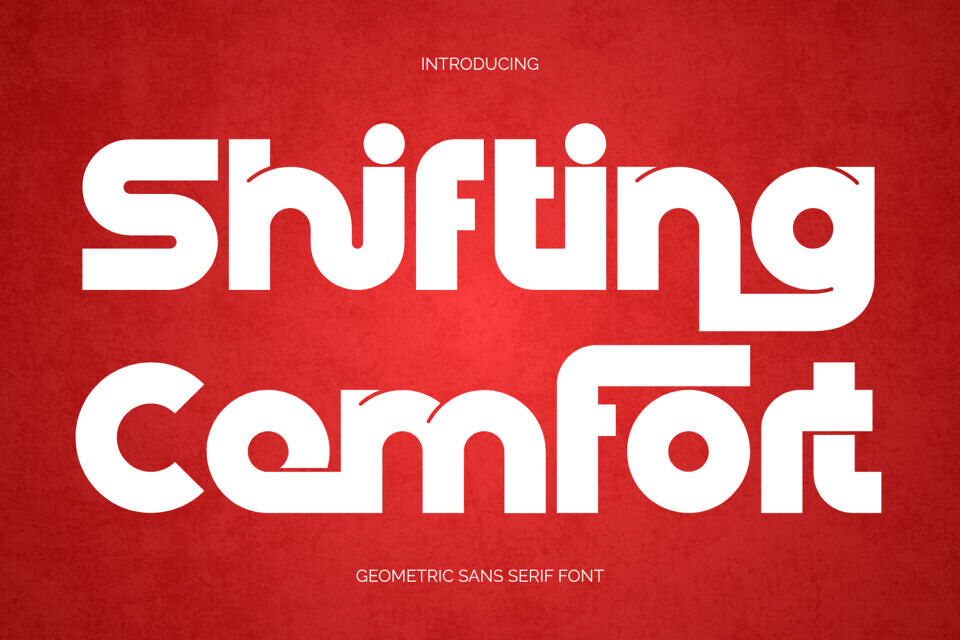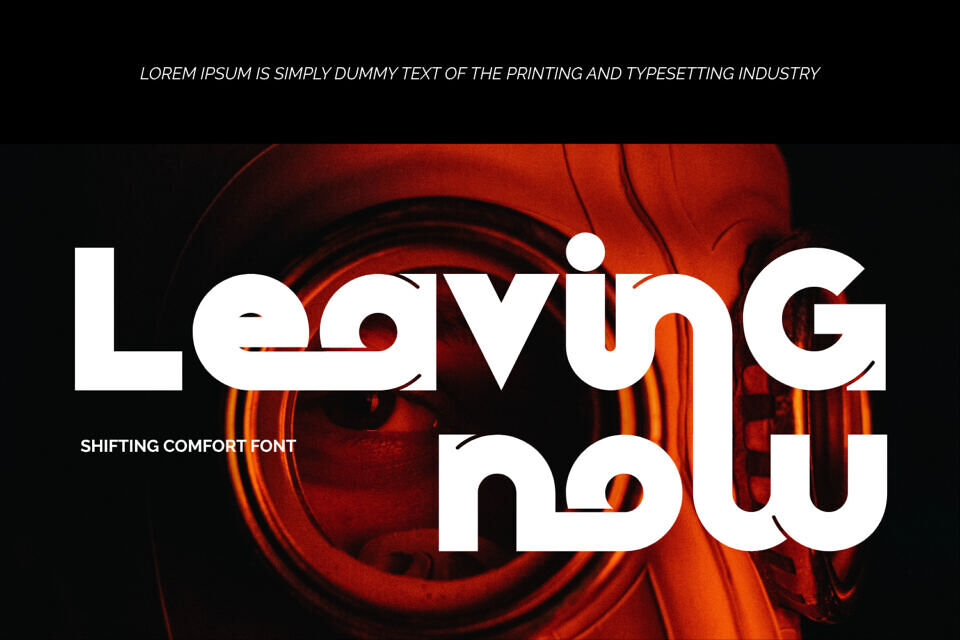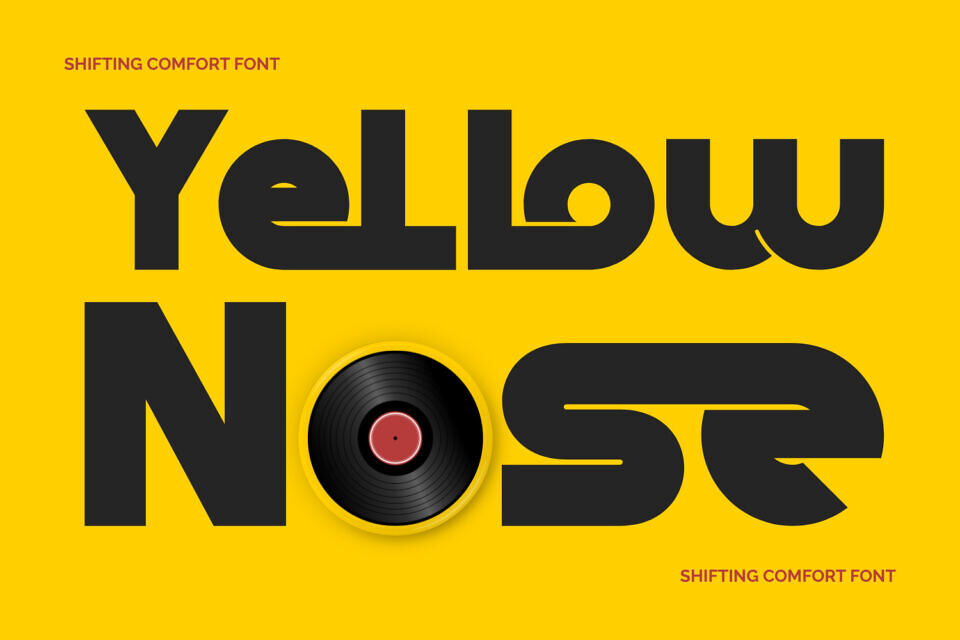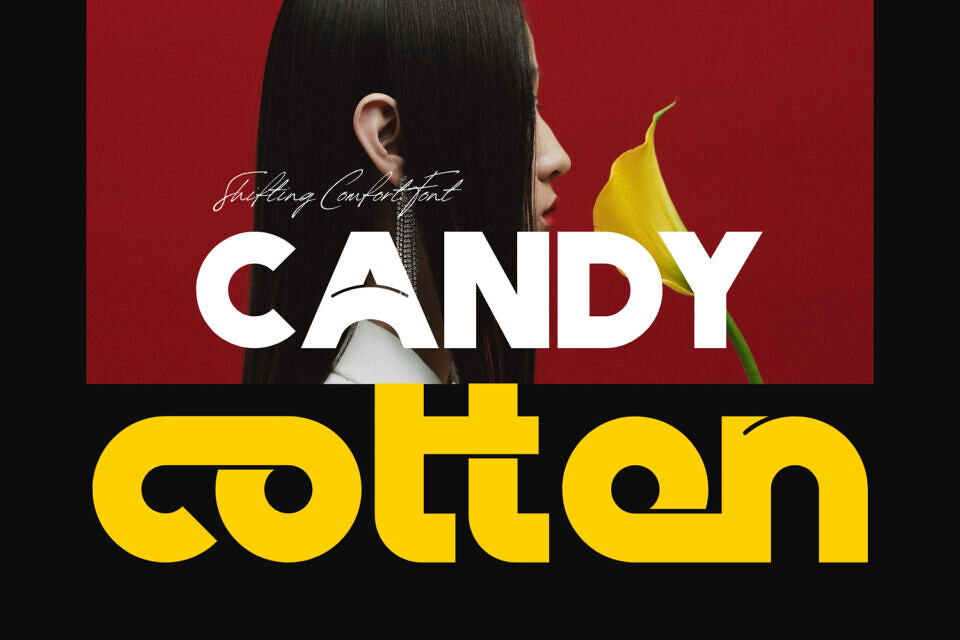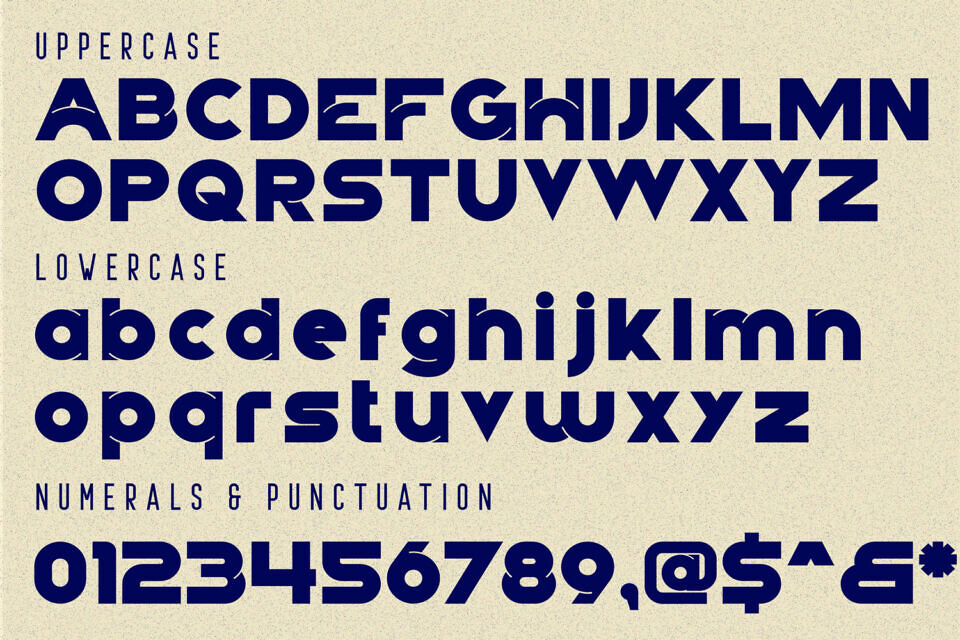
Shifting Comfort Font
Shifting Comfort is a bold geometric sans-serif display font that combines modern minimalism with retro-futuristic charm. Built with strong monoline strokes, smooth rounded corners, and clean geometric forms, this typeface delivers a confident and approachable visual presence.
Its balanced proportions and distinctive curved details create a unique personality that feels both contemporary and timeless. The soft edges add warmth while maintaining the precision and clarity expected from a modern display font, making it highly versatile across a wide range of creative applications.